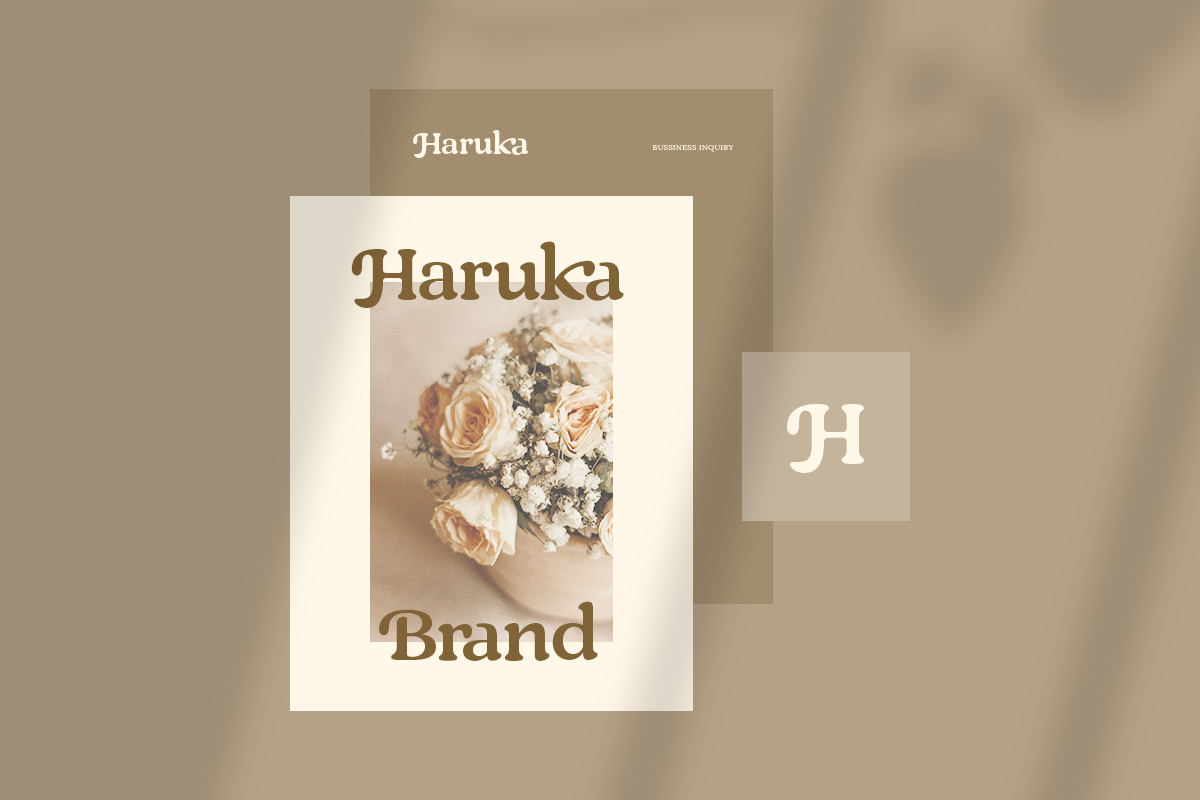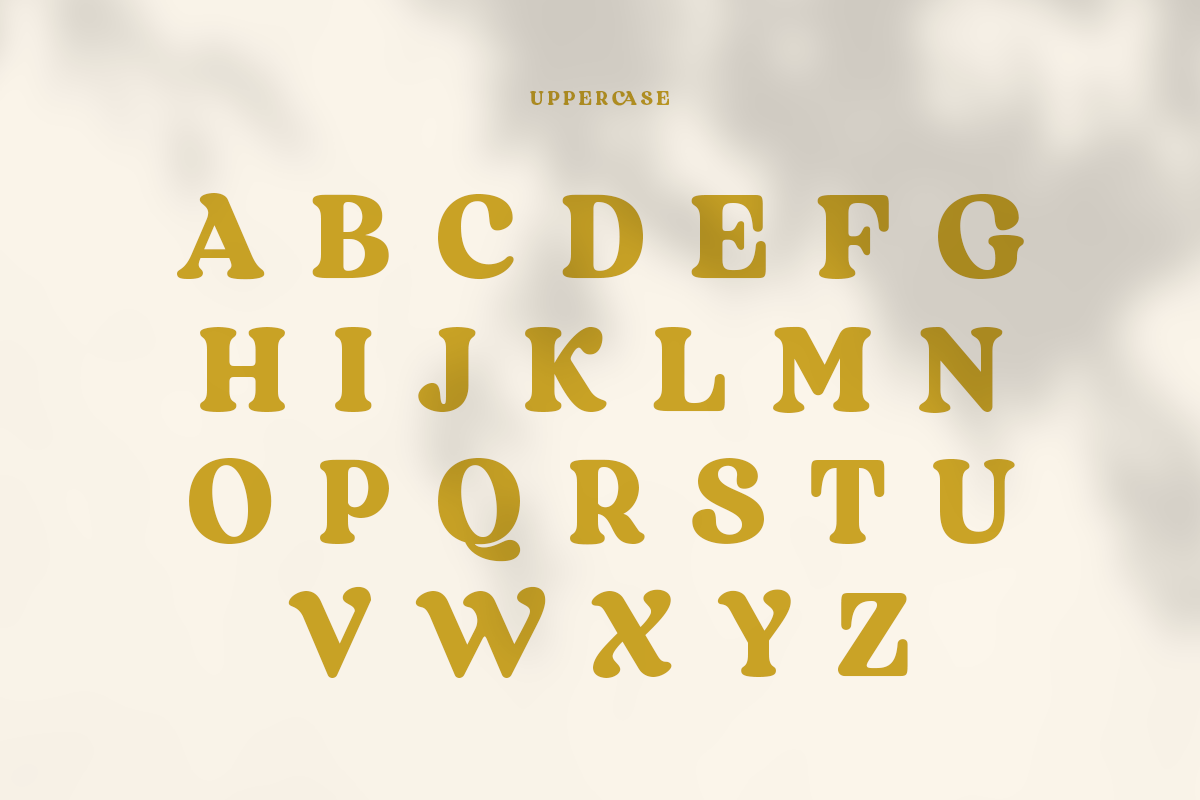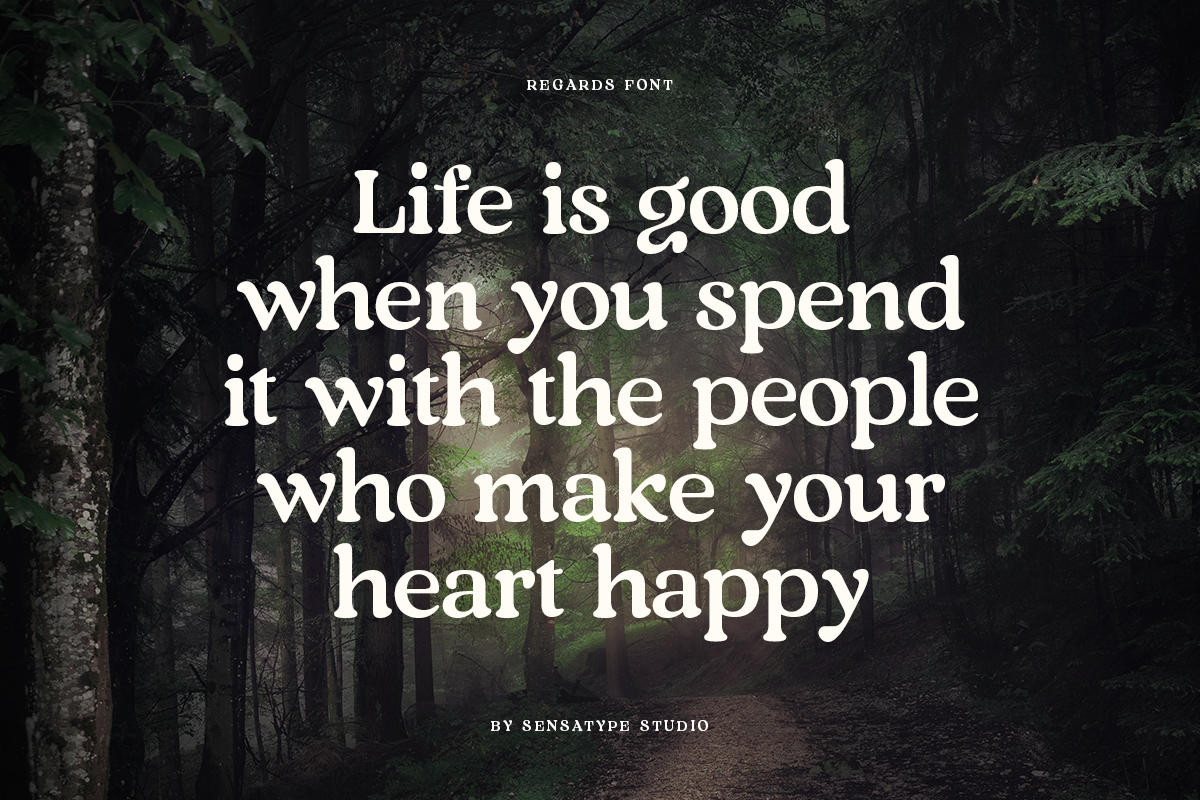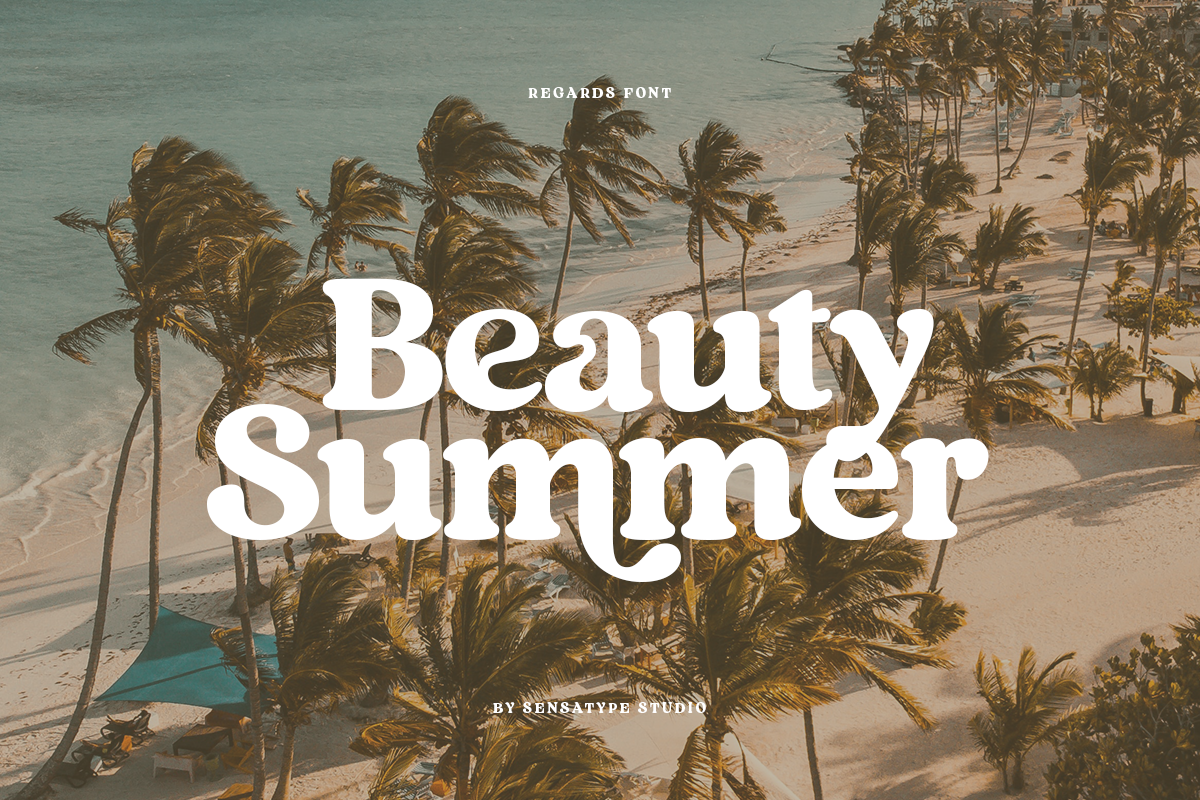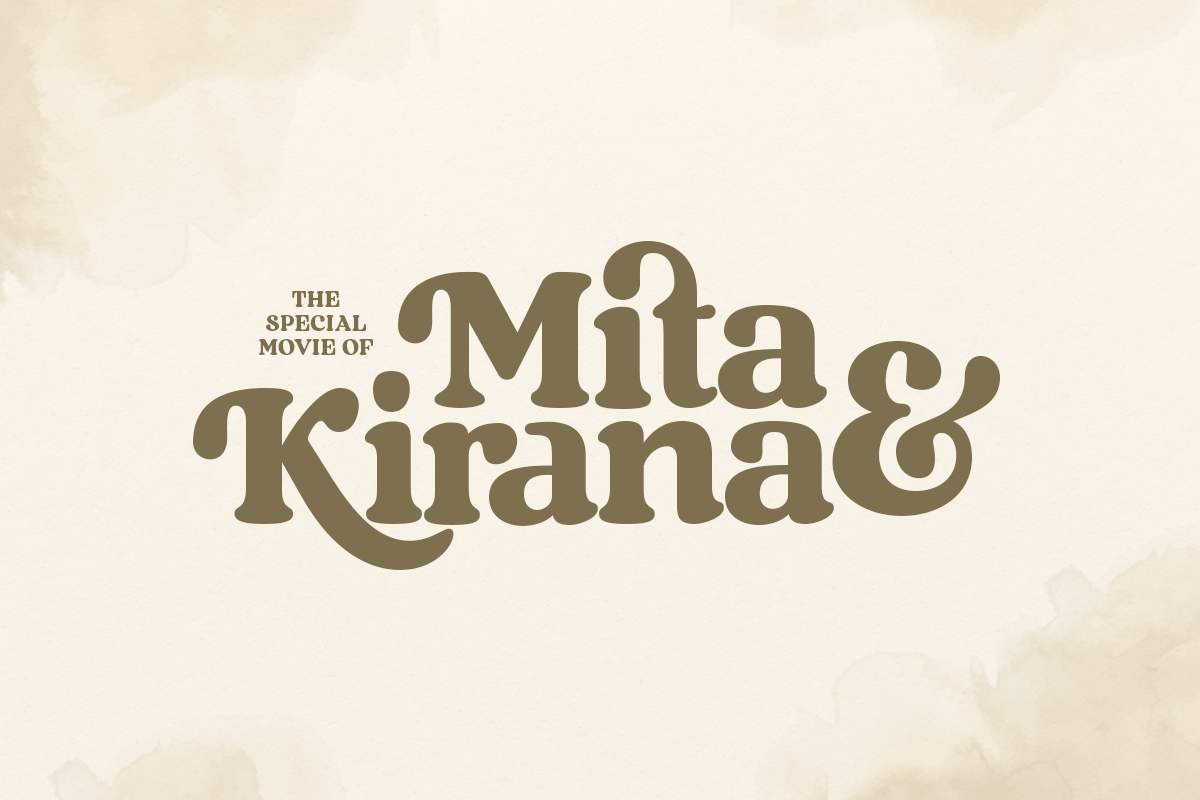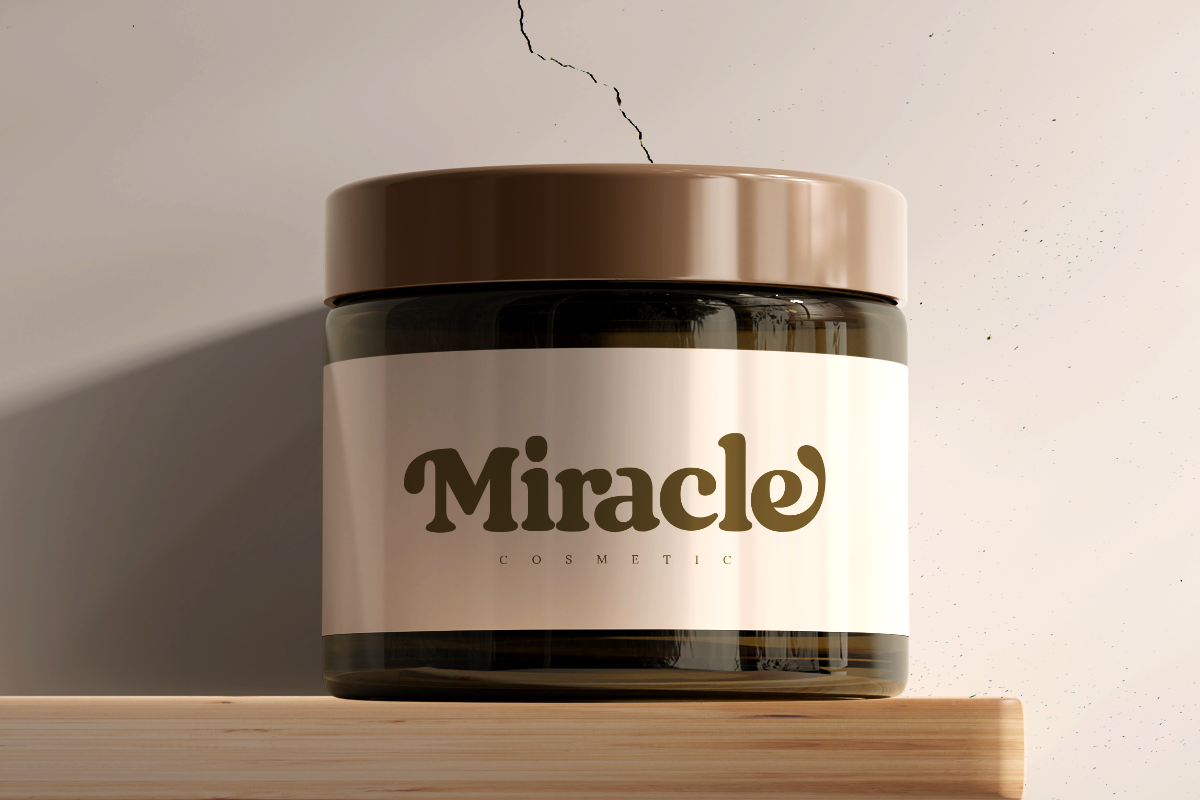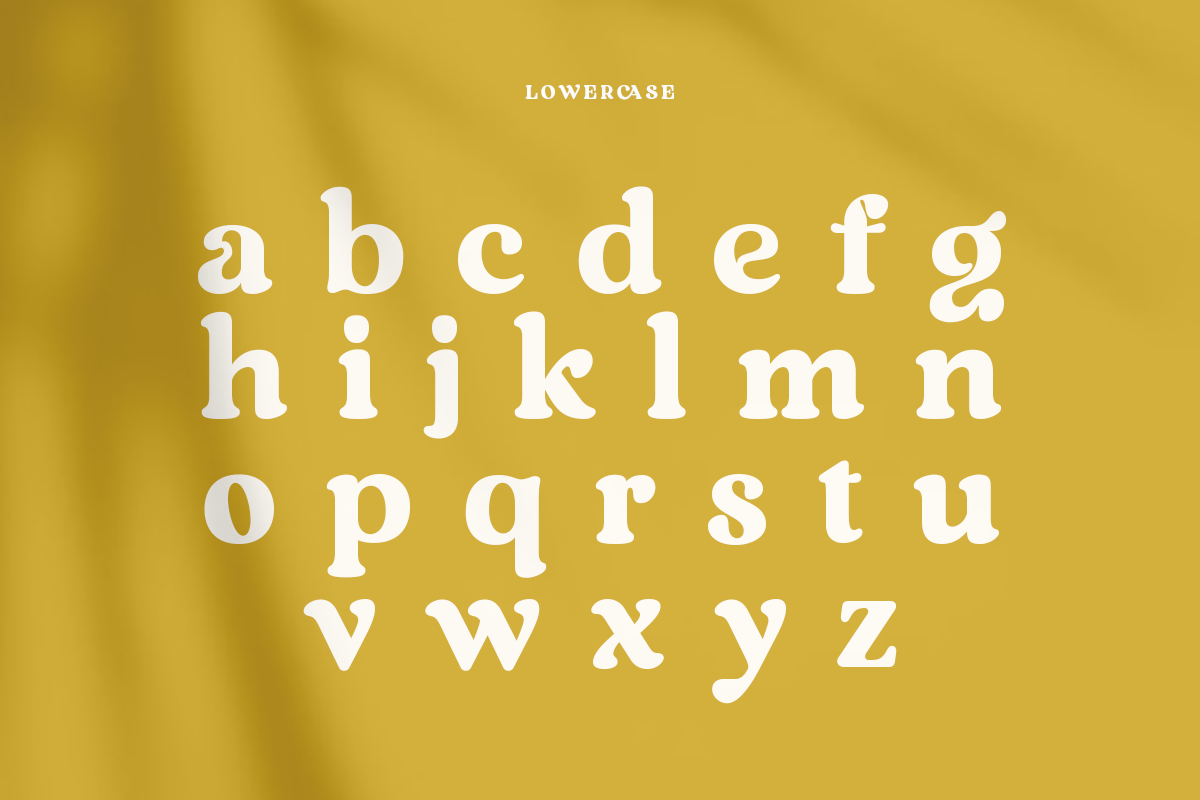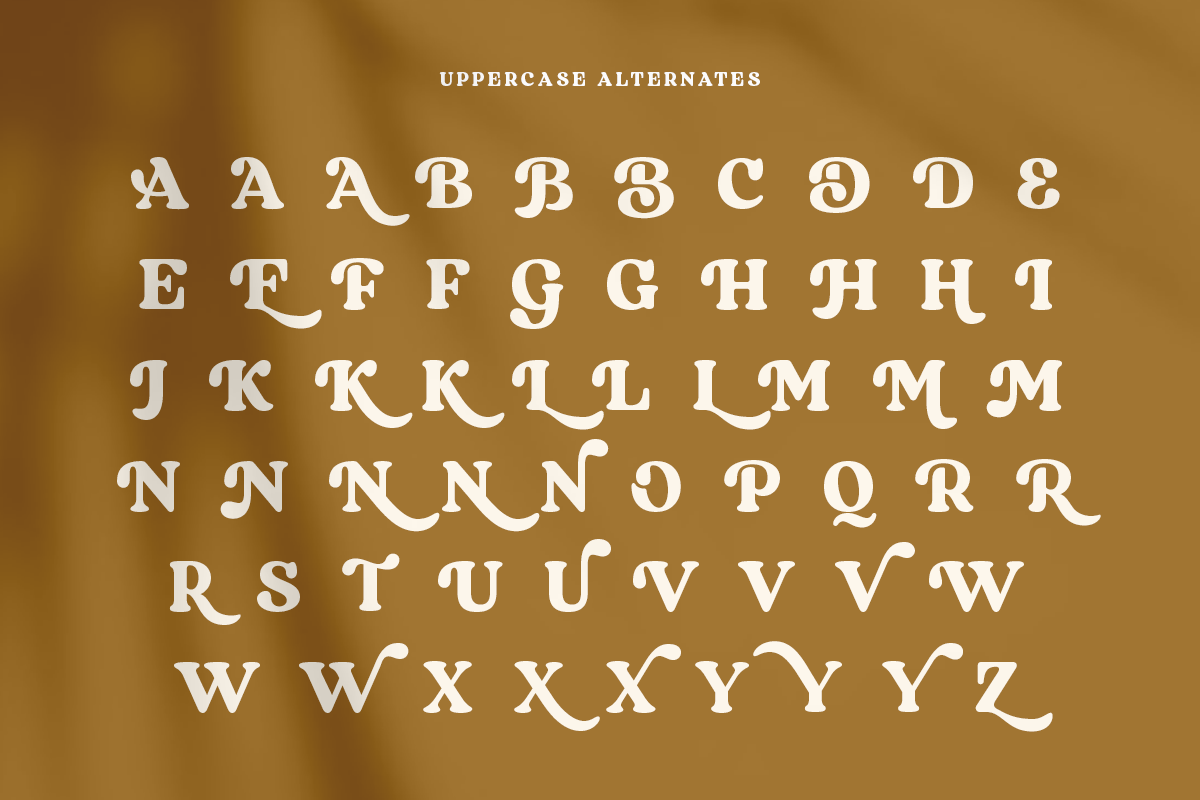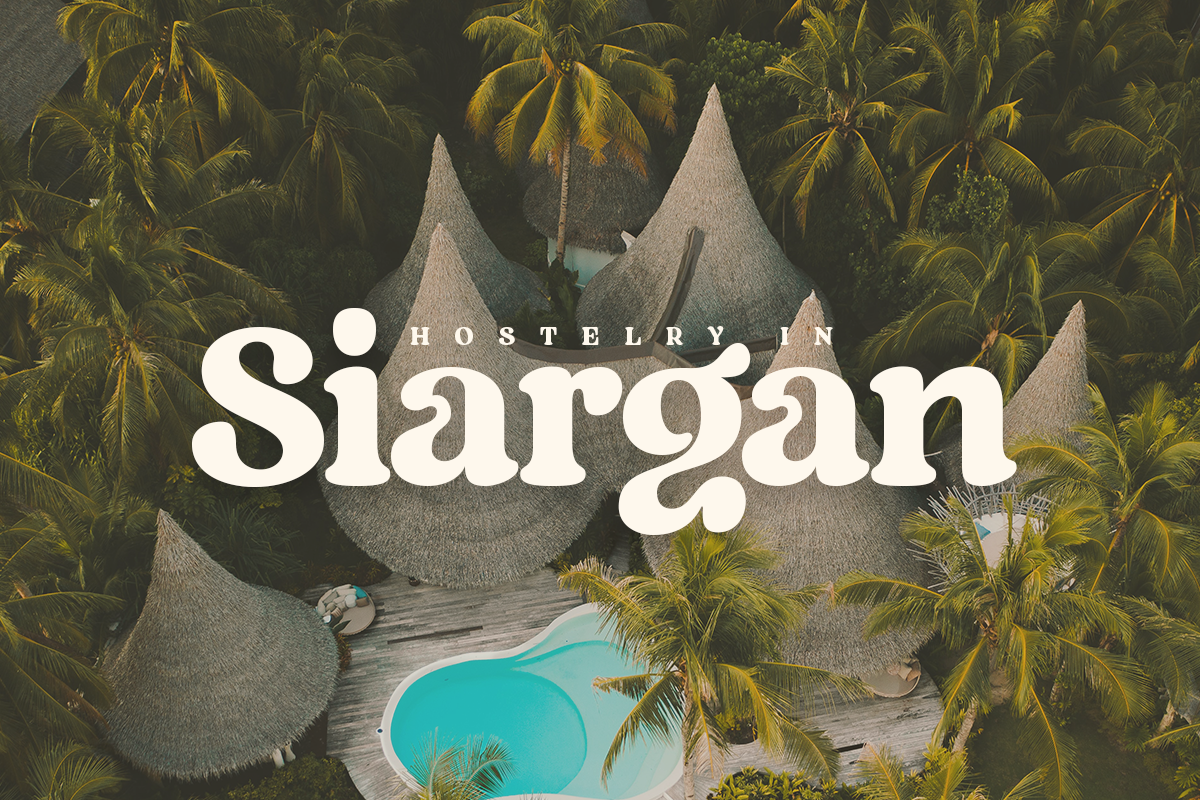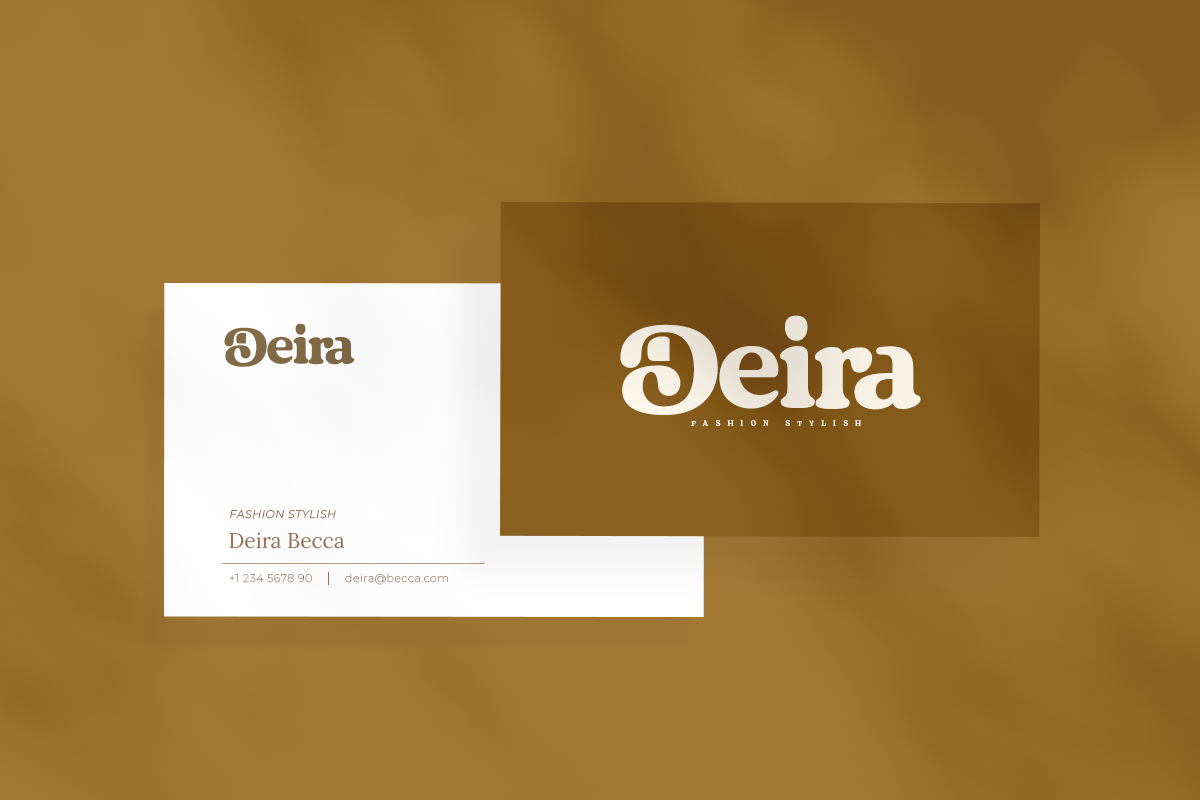
Regards - Modern Retro Serif
Regards is A Vintage Modern Retro Serif
Regards font is a well-balanced retro modern vintage font with a fancy, playful, unique, and versatile vintage serif family with 100+ alternates that you can combine to get curves and beautiful shapes easily just in seconds. It is a display font with moderate contrast that perfect for branding projects, logo, wedding designs, social media posts, advertisements, product packaging, product designs, label, photography, watermark, invitation, stationery, and any projects, it makes with a high level of legibility.
- Character set A-Z
- Ligature & Huge Stylistic alternates